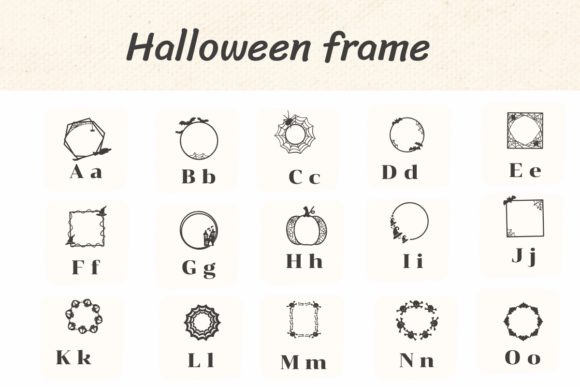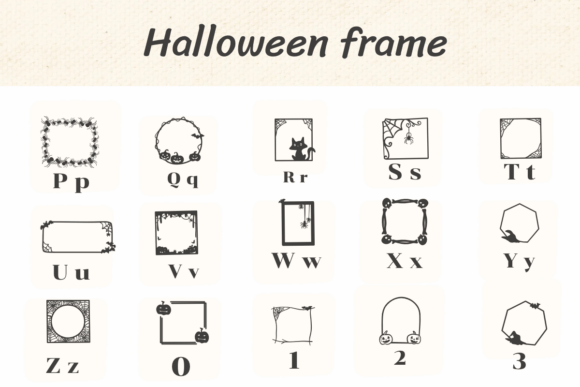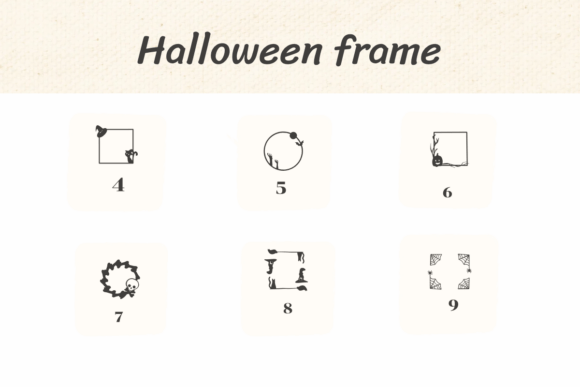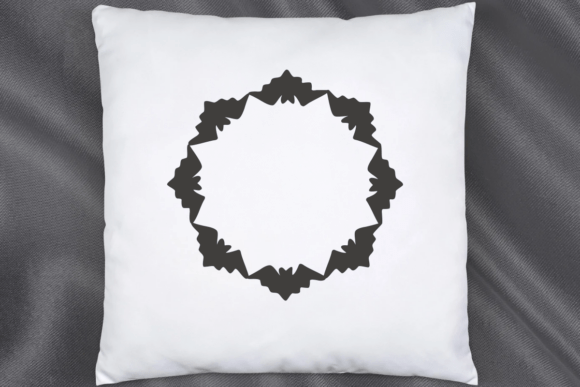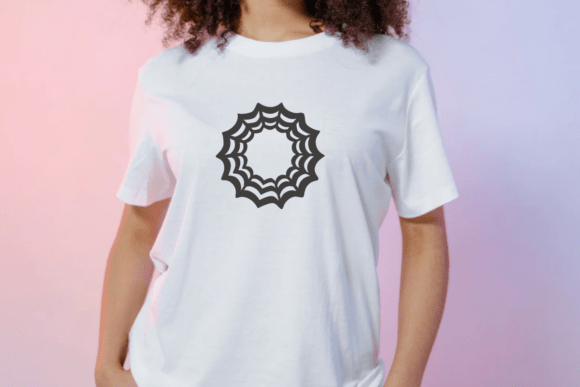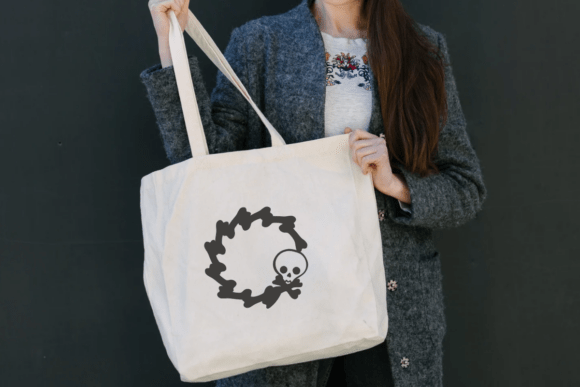
Introduction to Halloween Frame Font
As the sun sets on a crisp autumn evening, and the jack-o’-lanterns begin to glow, many designers start to feel a creative spark. It’s the perfect time to unleash your imagination and add a touch of spooky charm to your projects. One of the most effective ways to do this is by incorporating a font that captures the essence of Halloween.
Enter the Halloween Frame Font, a stunning dingbats font that brings a new level of creativity to your designs. With its high-quality design and transparent background, this font is perfect for adding a hauntingly beautiful touch to your projects. Whether you’re working on a wedding invitation, a DIY craft, or a logo, the Halloween Frame Font is an invaluable design resource that will elevate your work to the next level.
Key Features of Halloween Frame Font
- High-quality, spooky font design perfect for creative projects and Halloween-themed designs.
- Features a transparent background, allowing for easy integration with various design elements.
- Includes a range of design elements, including frames, borders, and ornaments, to enhance your creative project.
- Designed with a high resolution of 300 DPI, ensuring crisp and clear text display.
- Supports a wide range of languages, making it a versatile design resource for global audiences.
- Comes in a single size, making it easy to use across various design applications and sizes.
Honest Review: Halloween Frame Font
One of the standout features of this font is its high-quality design. The frames are intricately detailed, making it perfect for a creative project that requires a touch of sophistication.
Here are some of the things that work well with the Halloween Frame Font:
- ✨ Great for adding a spooky touch to your designs
- ✨ Compatible with a variety of design software
- ✨ Easy to use and customize
- ⚠️ The font is not ideal for use with a transparent background
- ⚠️ Some users may find the frames a bit too ornate
Overall, I’m impressed with the Halloween Frame Font. It’s a great design resource for anyone looking to add a touch of Halloween magic to their creative projects. With its high-quality design and ease of use, I would highly recommend it to anyone looking for a free font that packs a punch.
The Halloween Frame Font is perfect for creating spooky invitations, decorations, and designs for Halloween-themed parties. You can also use the font in combination with other design elements to create a unique and creative project. Some common use cases include:
- Halloween party invitations
- Spooky decorations
- Halloween-themed social media graphics
- Creepy book covers
To get the most out of the Halloween Frame Font, experiment with different font sizes, colors, and styles. Use the font with a transparent background to create a spooky effect. You can also combine the font with other design elements, such as images and graphics, to create a unique and creative project.
Can I use the Halloween Frame Font for a creative project that’s not Halloween-themed?
Yes, you can use the Halloween Frame Font for a creative project that’s not Halloween-themed. The font’s design is versatile and can be used for a wide range of creative projects. You can use it to add a spooky or mysterious touch to your design, or simply as a unique design element. The font’s high-quality design makes it suitable for use in various creative projects, from posters